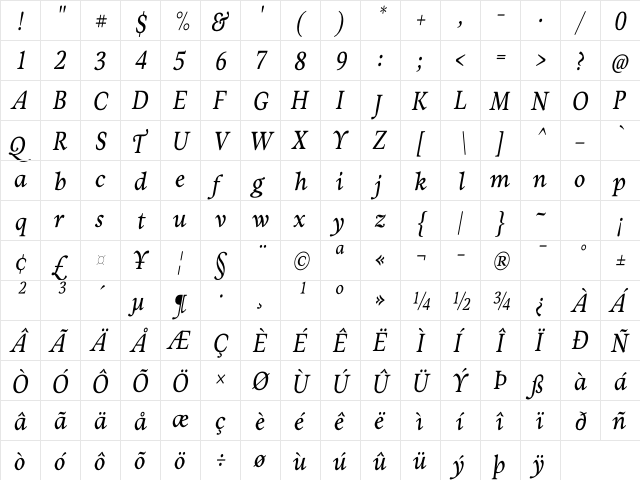
MuseeCursive Regular Font Preview
MuseeCursive Regular
MuseeCursive Regular Font Details
| Foundry | Dino dos Santos _DSType |
Design Context for MuseeCursive Typeface
MuseeCursive flows with the natural rhythm of handwritten lettering, making it ideal for designs that call for warmth and personal expression.
Font Pairing: Combine MuseeCursive with a simple geometric sans for maximum contrast — the tension between flowing curves and clean structure is a classic typographic pairing.
Pro Tip: Use MuseeCursive for short runs of text — names, titles, or taglines. Extended body copy in script faces tires the eye quickly.